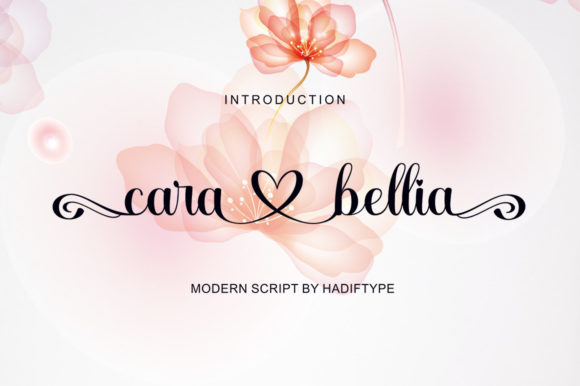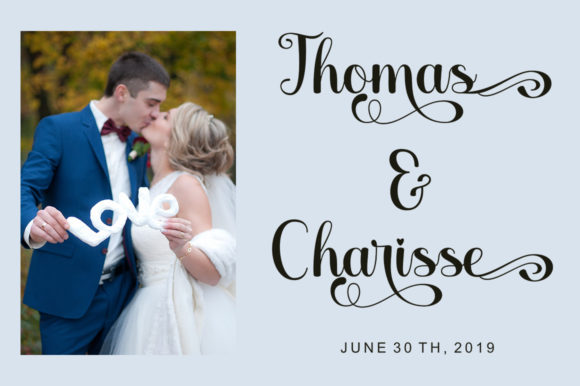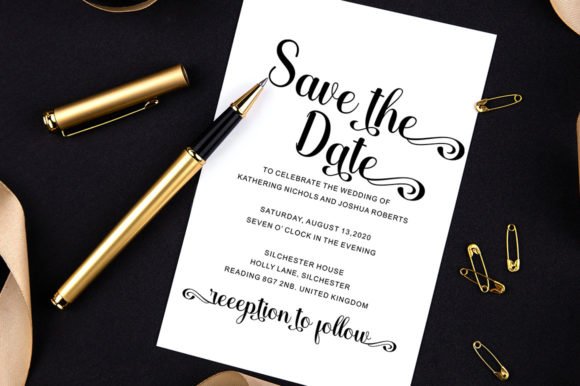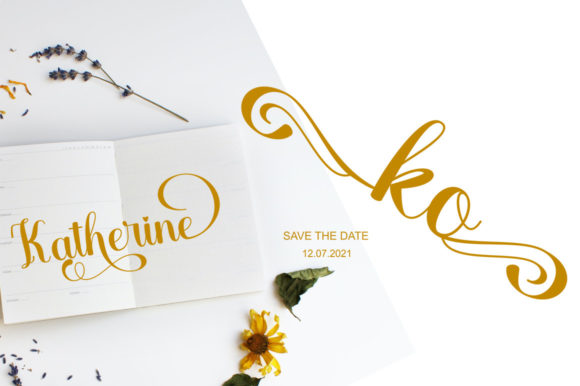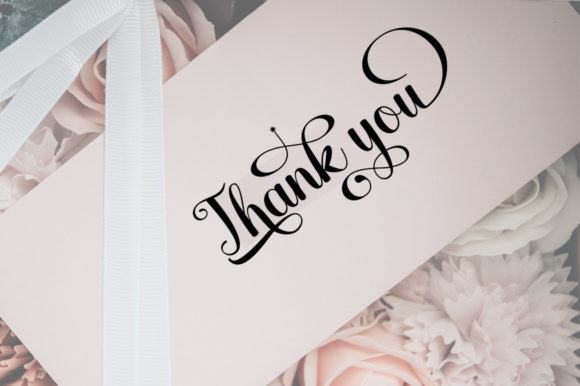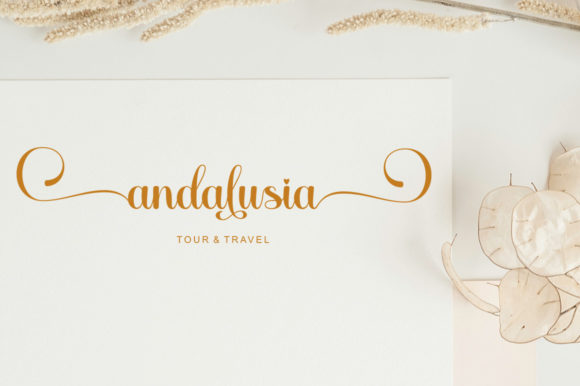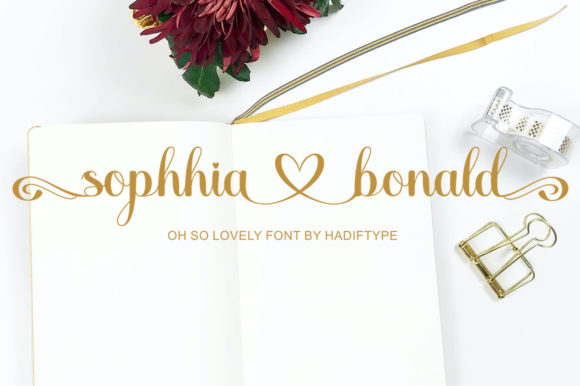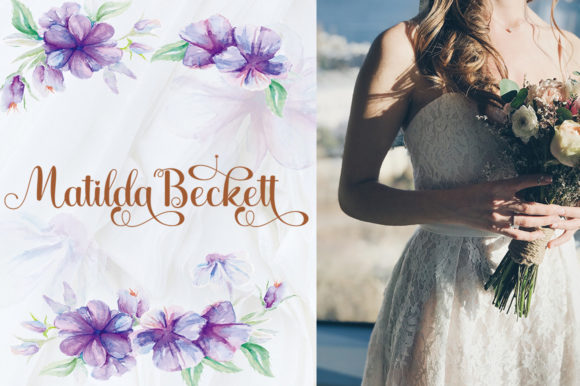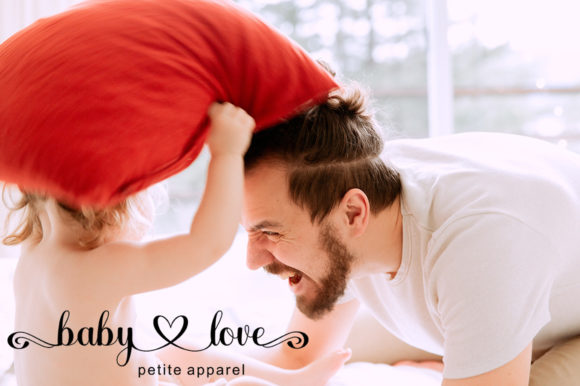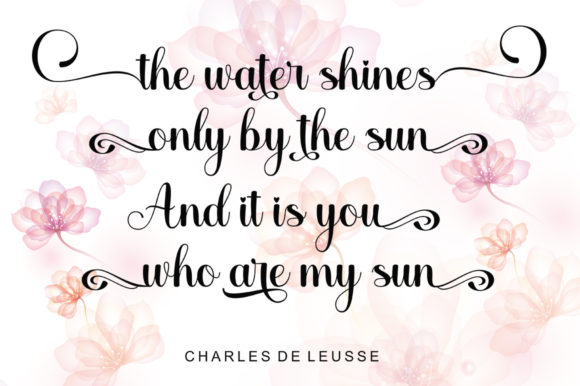
Cara Bellia Script Font
About Cara Bellia Script Font
Cara Bellia Script is a romantic and sweet calligraphy typeface with characters that dance along the baseline. It will add a luxury spark to any design project that you wish to create! This font is PUA encoded which means you can access all of the amazing glyphs and ligatures with ease!